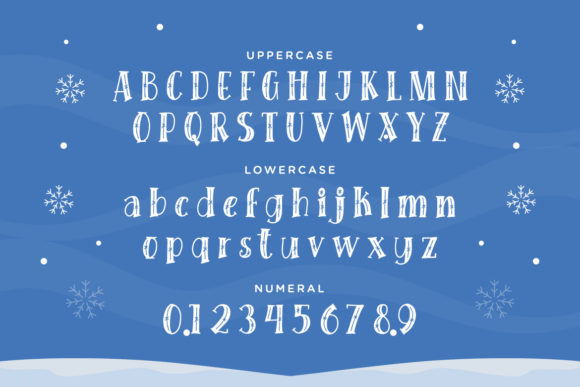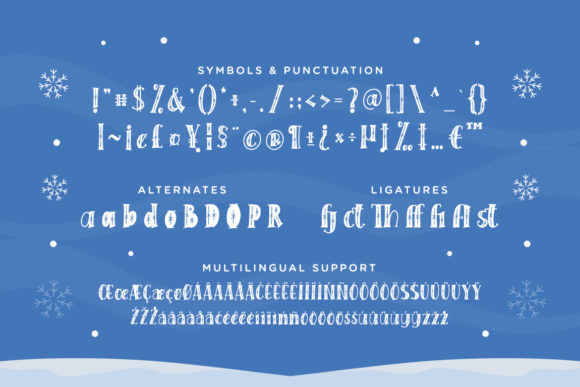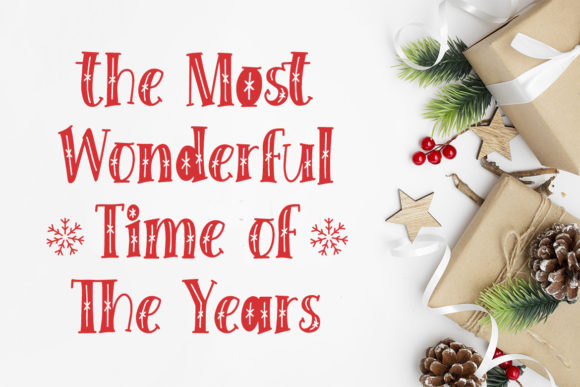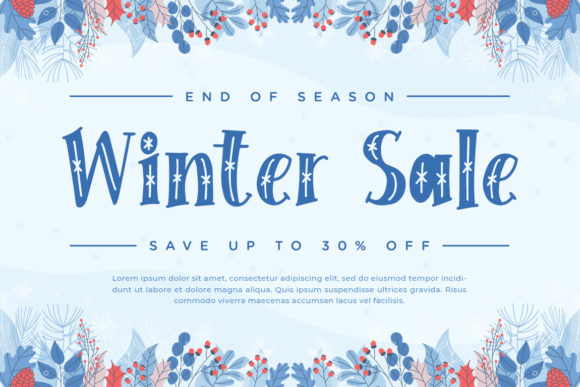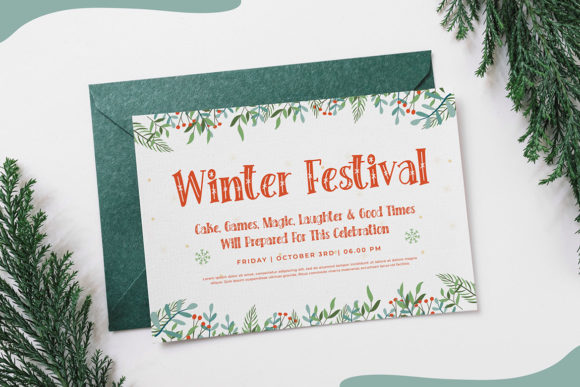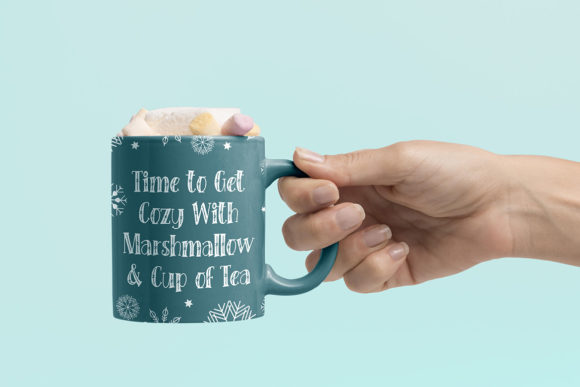
Introduction to Kinderust Font
As the snowflakes gently fall outside, the spark of creativity ignites within you. You’re working on a new winter-themed design, and you need the perfect font to give it that extra touch of magic. That’s where Kinderust Font comes in – a modern and incredibly unique winter decorative font that will make your design stand out from the crowd.
So, get ready to unleash your creativity and explore the endless variations of Kinderust Font. With its unique charm and modern feel, this font is sure to become your go-to choice for all your winter designs and beyond.
Key Features of Kinderust Font
- High-Quality Design: Kinderust Font is a premium design resource suitable for various creative projects, offering a unique and elegant look.
- Unique Characteristics: This font features a distinctive and modern design, with unique letterforms and typography that set it apart from other fonts in its class.
Honest Review: Kinderust Font
The Kinderust Font has a unique, hand-drawn feel that adds a touch of whimsy to any design. The font’s transparent background makes it easy to use with different backgrounds, which is a huge plus. ✨
Here are some of the things I like about the Kinderust Font:
- Limited character set, which may be a issue for designers who need to use the font for extensive text
Overall, I’m impressed with the Kinderust Font’s unique design and high-quality feel. While it has some limitations, it’s a great resource for designers who need a free, high-quality font for small to medium-sized projects. ⚠️
How to Use Kinderust Font
Kinderust Font is a versatile and elegant design resource suitable for various creative projects. Its high-quality design makes it an ideal choice for designers and artists seeking a unique aesthetic.
Tips for Getting the Most Out of Kinderust Font
For optimal results, pair Kinderust Font with complementary colors and simple backgrounds. Use it for headings, titles, or quotes to add a touch of elegance to your design. Experiment with different font combinations to create unique and visually appealing designs.
Kinderust Font is suitable for various design projects, including:
- Birthday invitations and party decorations
- Wedding stationery and wedding invitations
- Printable art and wall decor